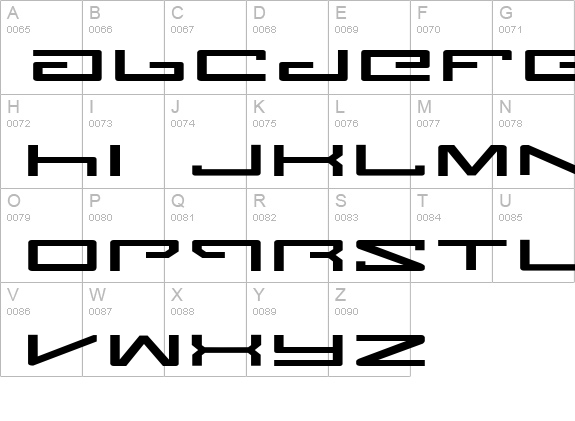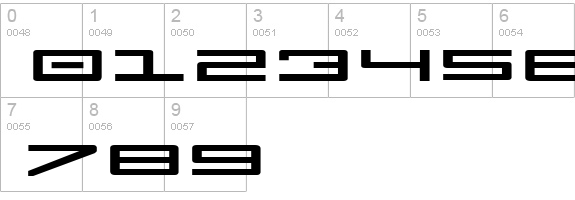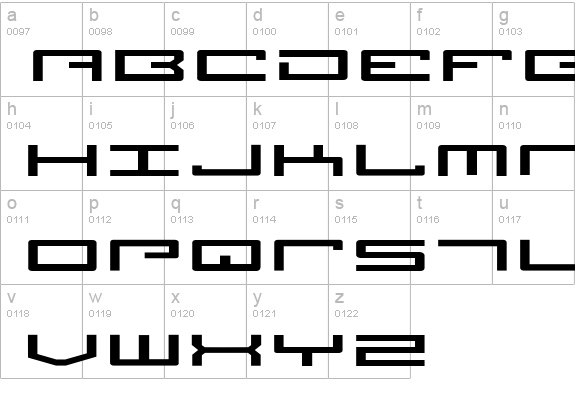
Legion Expanded Font Details
Legion Expanded is a distinctive, extended-width variant in the Legion typeface family \xE2\x80\x94 well suited to design and typography projects.
Legion Expanded font is a captivating typeface that exudes strength, power, and unity. Its bold and commanding presence is perfect for making a statement in your designs, whether it be for logos, headlines, or any other creative project. With its expanded width, Legion Expanded font offers a unique and striking aesthetic that demands attention. What sets Legion Expanded font apart is not just its stunning appearance, but also its accessibility. This font is available for free download at FontsMarket.com, allowing designers and enthusiasts alike to effortlessly incorporate it into their work. The freedom to access this font at no cost ensures that creativity knows no bounds and that individuals from all walks of life can benefit from its remarkable qualities. Legion Expanded font beautifully combines sleek lines with a touch of artistic flair, resulting in a versatile typeface that can easily adapt to various design styles and themes. Its extended characters add a sense of grandeur, while the meticulous attention to detail ensures legibility and clarity. Whether you are working on a project that requires a contemporary edge or one that calls for a timeless elegance, Legion Expanded font has the versatility to adapt and elevate your designs to new heights. Its bold and assertive nature lends itself to projects that demand attention, making it the perfect choice for branding, advertising campaigns, and editorial designs. So why wait? Unlock the potential of Legion Expanded font today by visiting FontsMarket.com and experiencing the freedom to create stunning designs with this remarkable typeface. Embrace the power of Legion Expanded font and let your creativity soar.